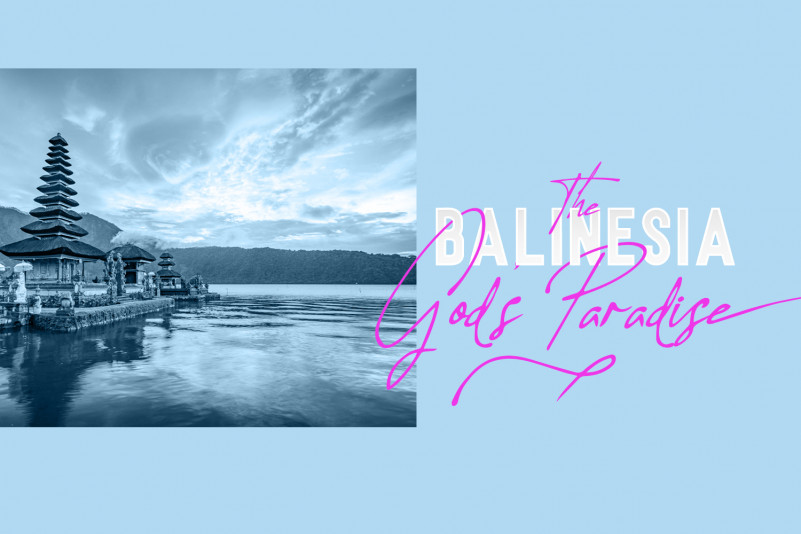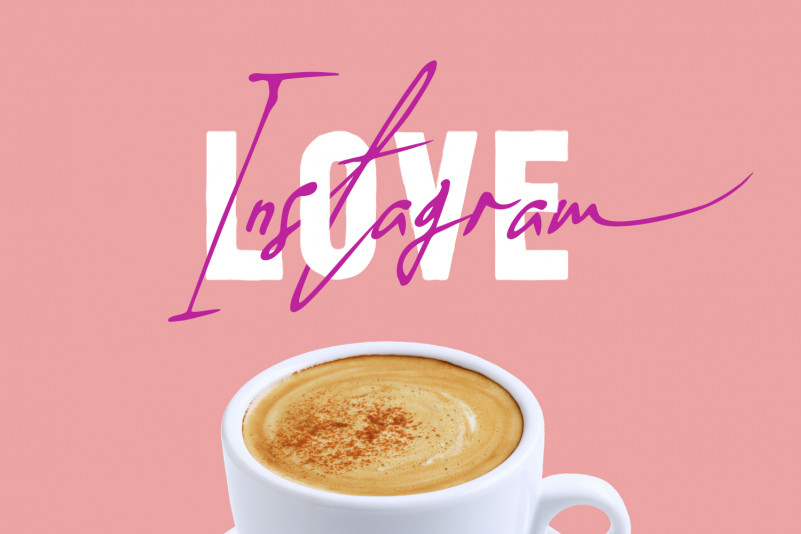
Allison Tessa Signature Font
Allison Tessa is gorgeous signature font and sans serif font with three variation regular, rough and stamp. Allison Tessa perfect for poster design, book covers, merchandise, fashion campaigns, newsletters, branding, advertising, magazines, greeting cards, album covers, and quote designs and more.